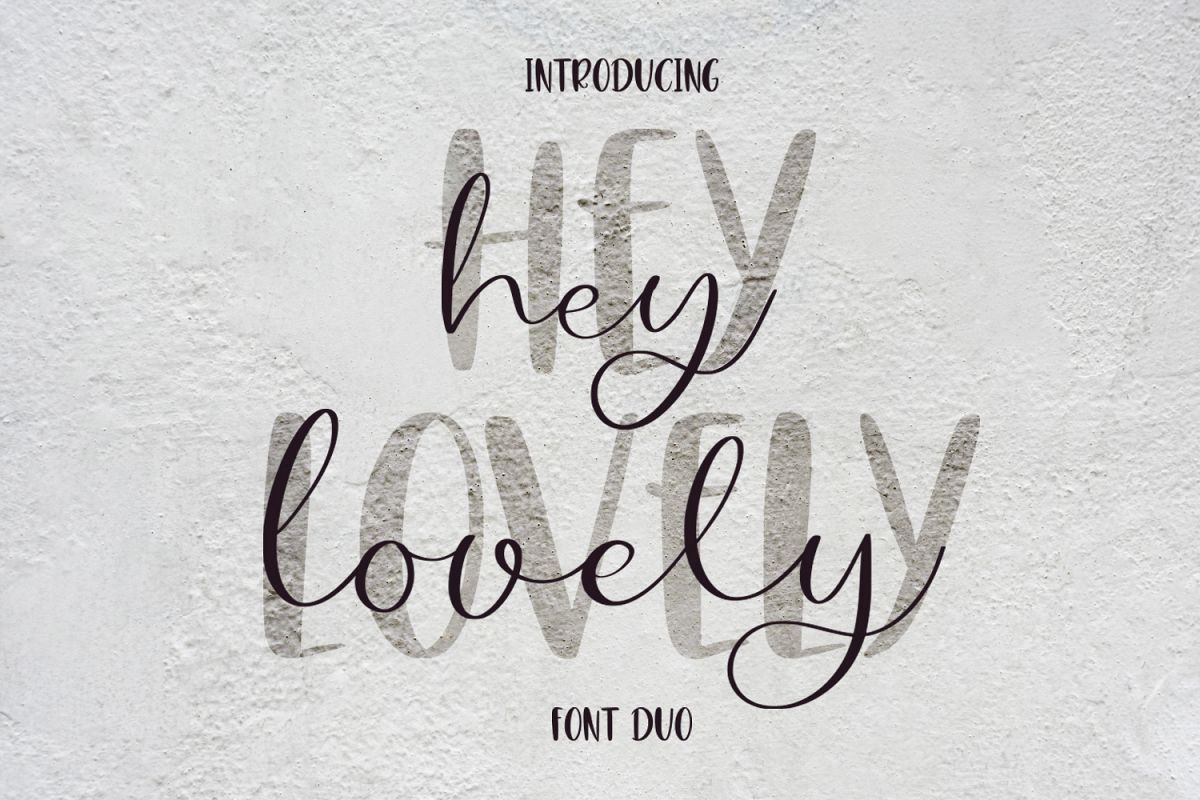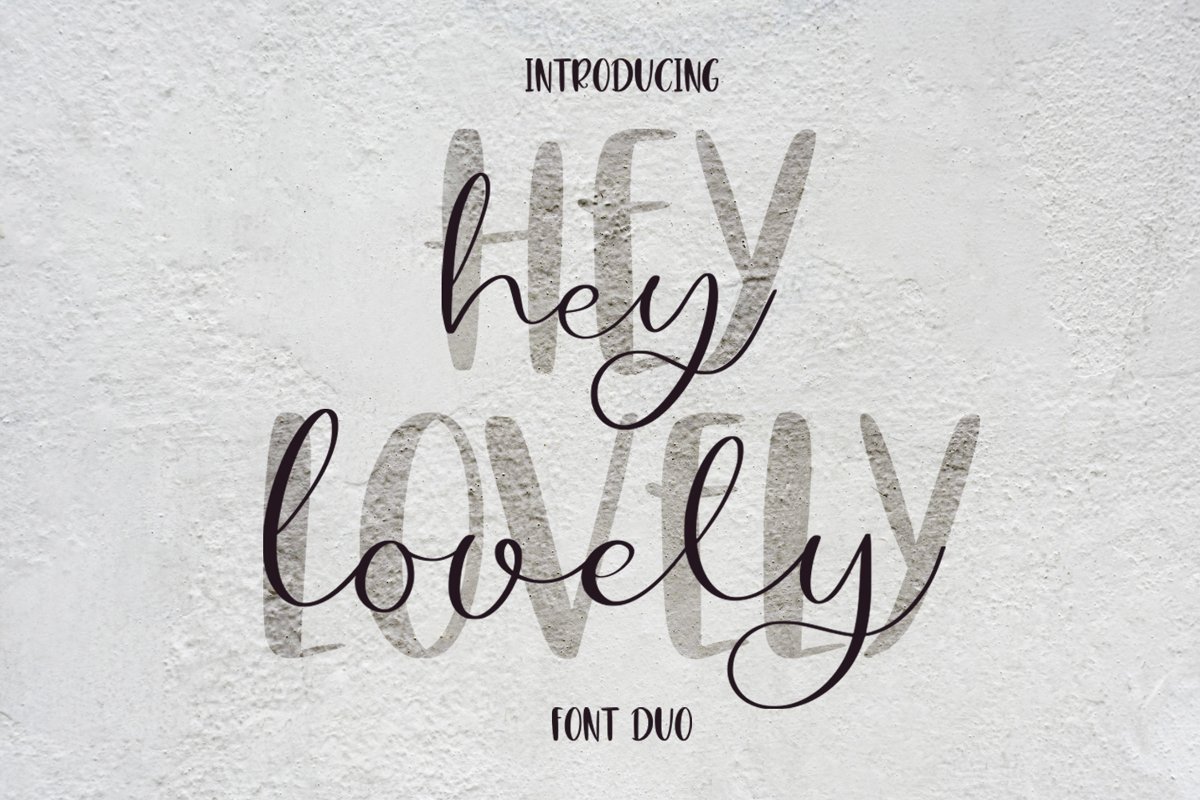
Hey Lovely. Font Duo it's a cute font duo Hey Lovely.otf - standart and alternate uppercase, lowercase, numbers, punctuation and ligature Hey LovelyStn.ttf - standart uppercase, lowercase, numbers, punctuation Hey LovelyAlt.ttf - alternate uppercase and lowercase Hey Lovely.otf / Hey Lovely.ttf - standart uppercase, lowercase, numbers, punctuation